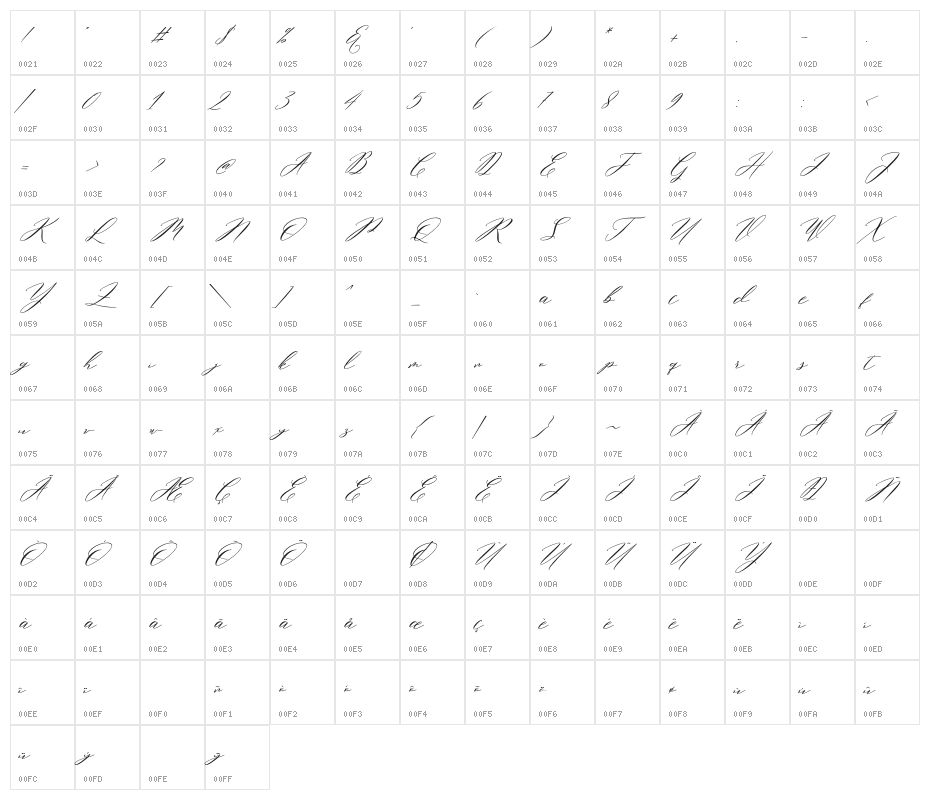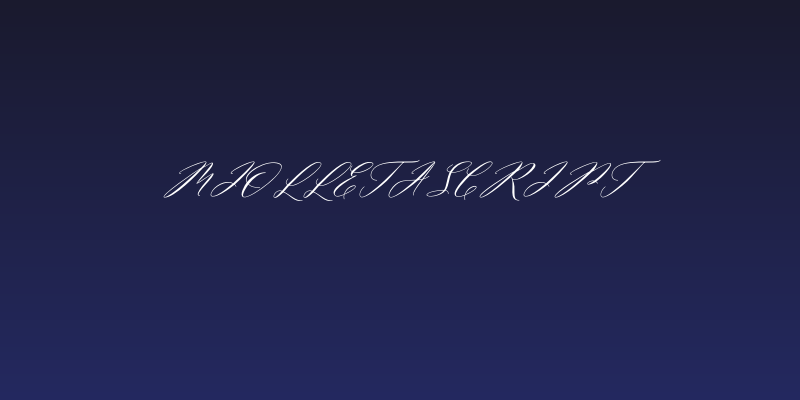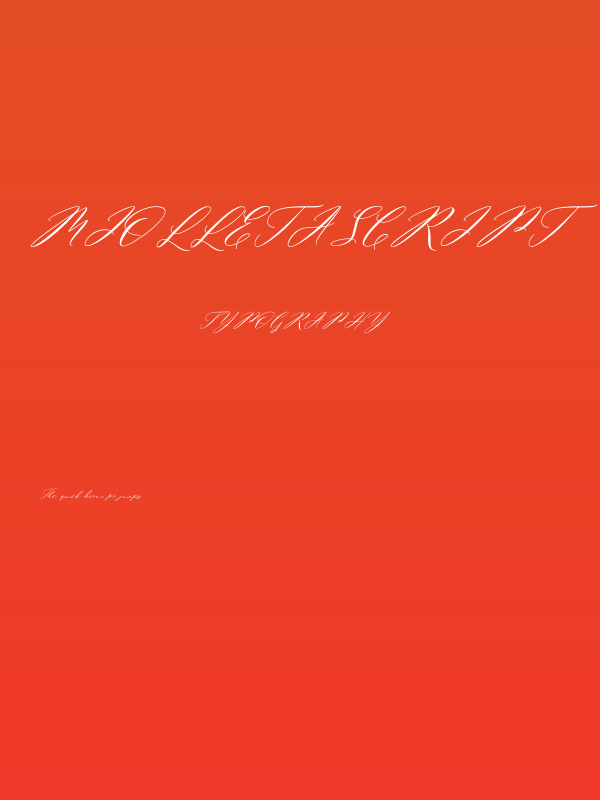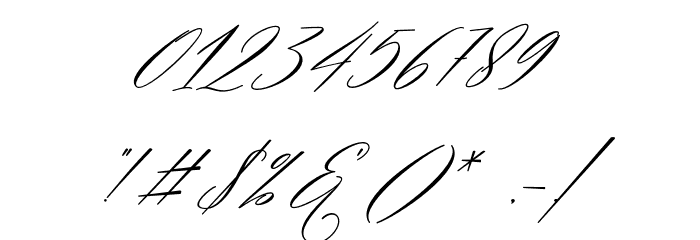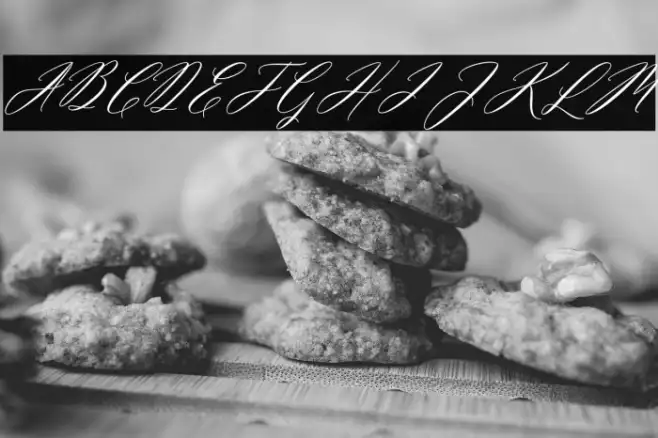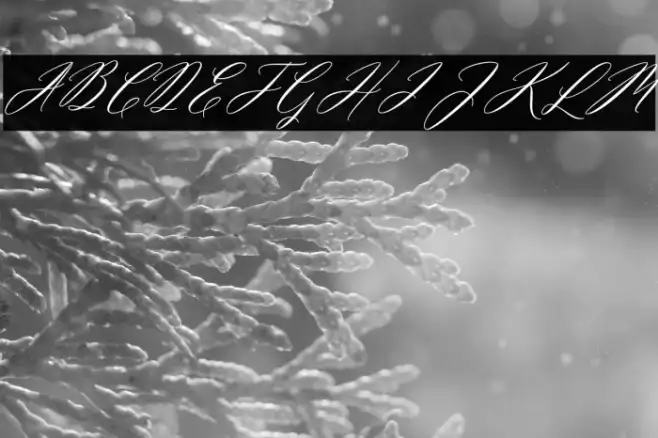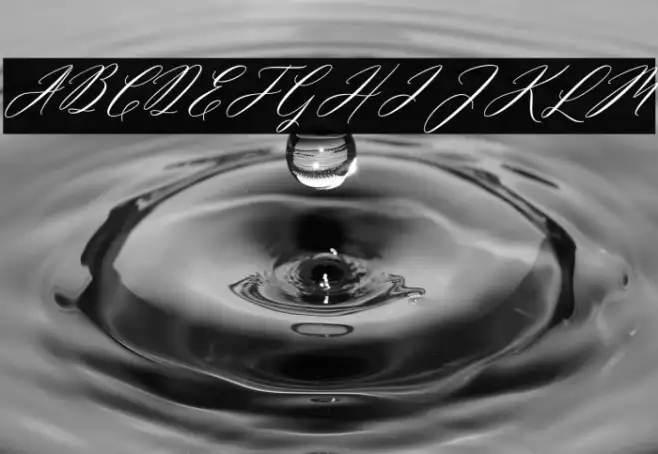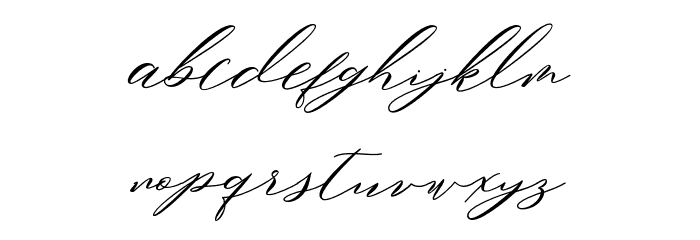
MiolletaScript Font
MiolletaScript Description
This elegant script font exudes a sense of sophistication and fluidity, characterized by its graceful, flowing lines and delicate curves. The uppercase letters are ornate and sweeping, while the lowercase letters maintain a consistent, smooth rhythm. The numerals and special characters complement the overall style with their refined and stylish appearance. This font is perfect for projects that require a touch of elegance and class, such as wedding invitations, formal event programs, or high-end branding materials. Its intricate design and attention to detail make it stand out as a luxurious choice for any design project.
| Proposed Projects | Ideal for wedding invitations, formal event programs, and high-end branding materials. |